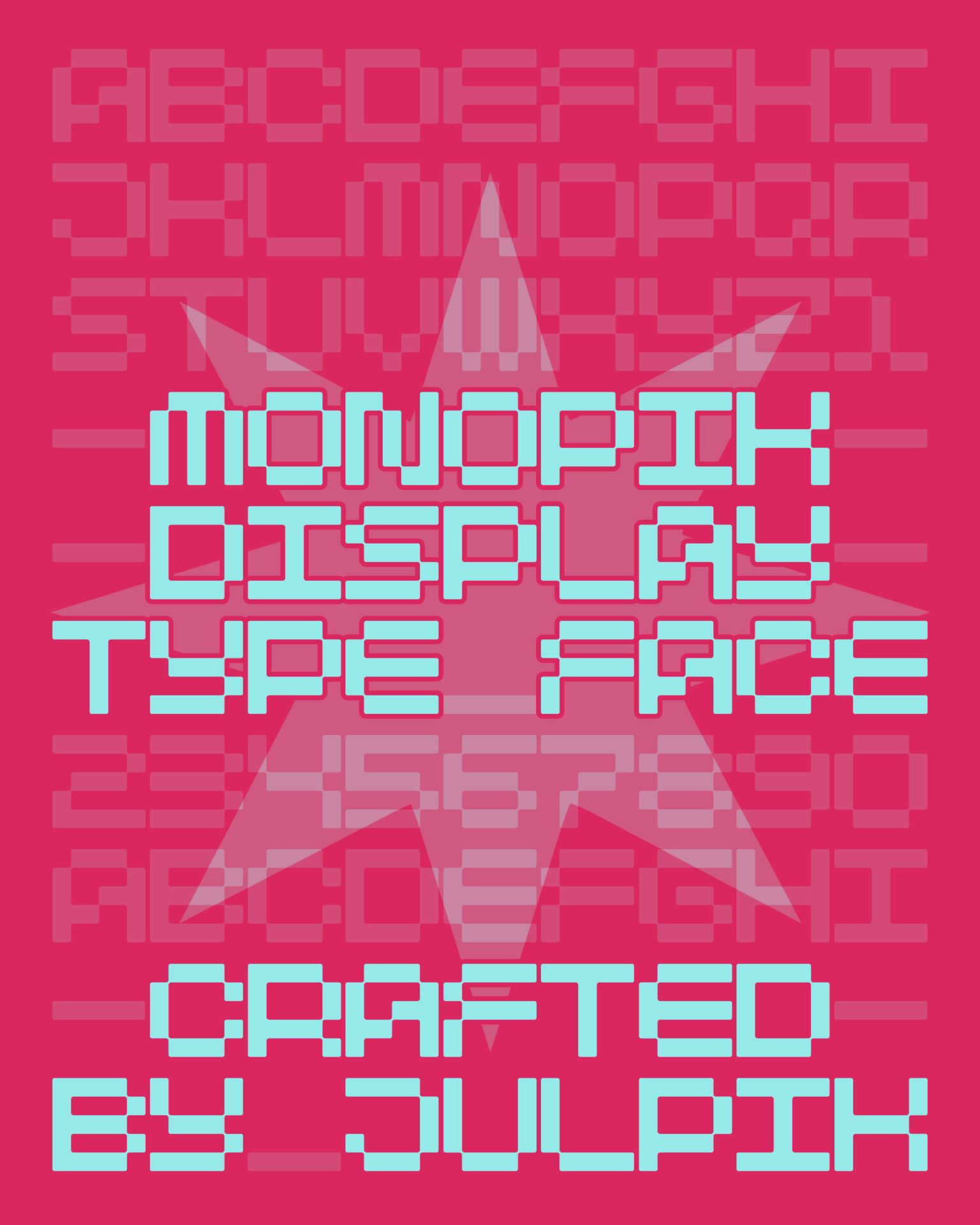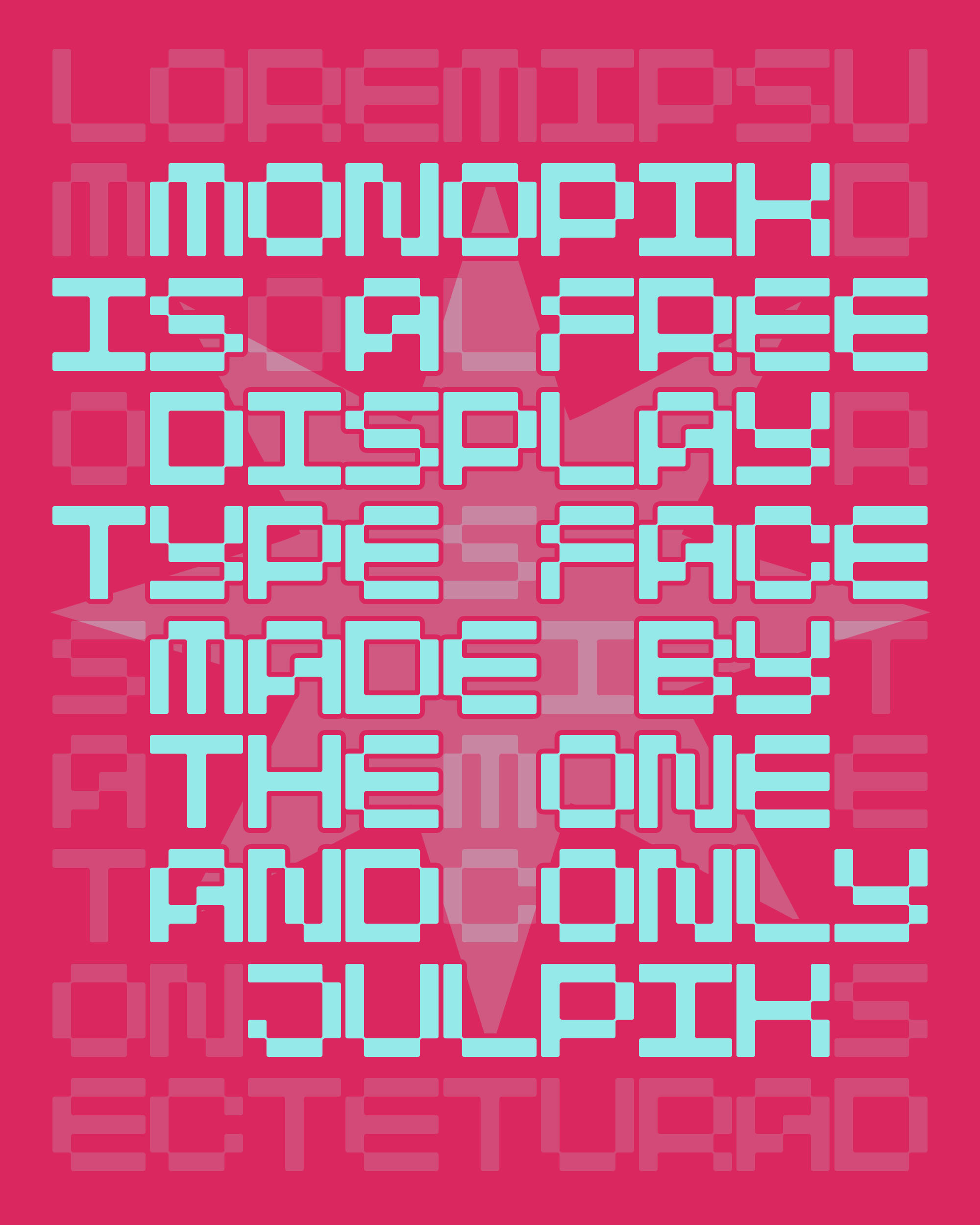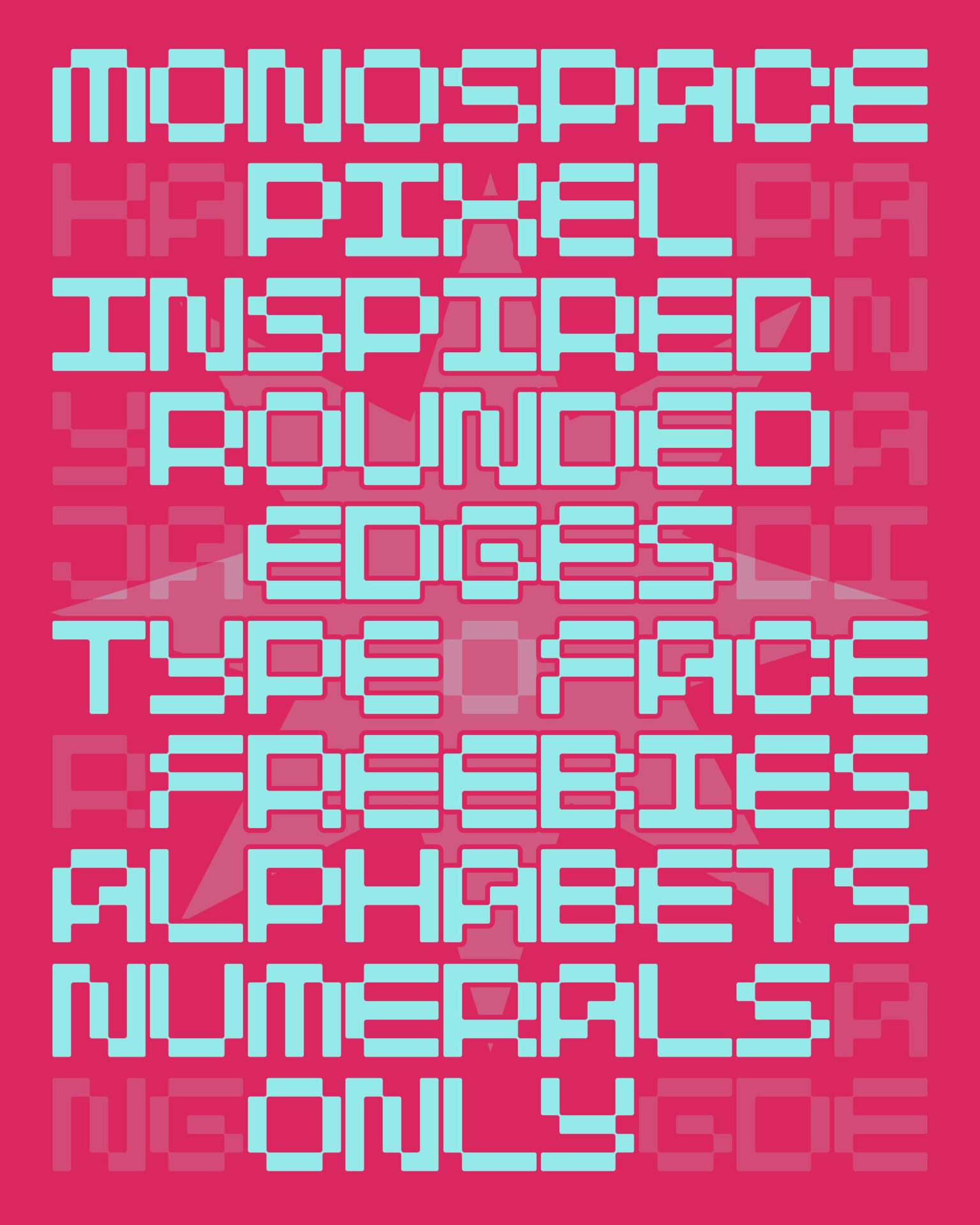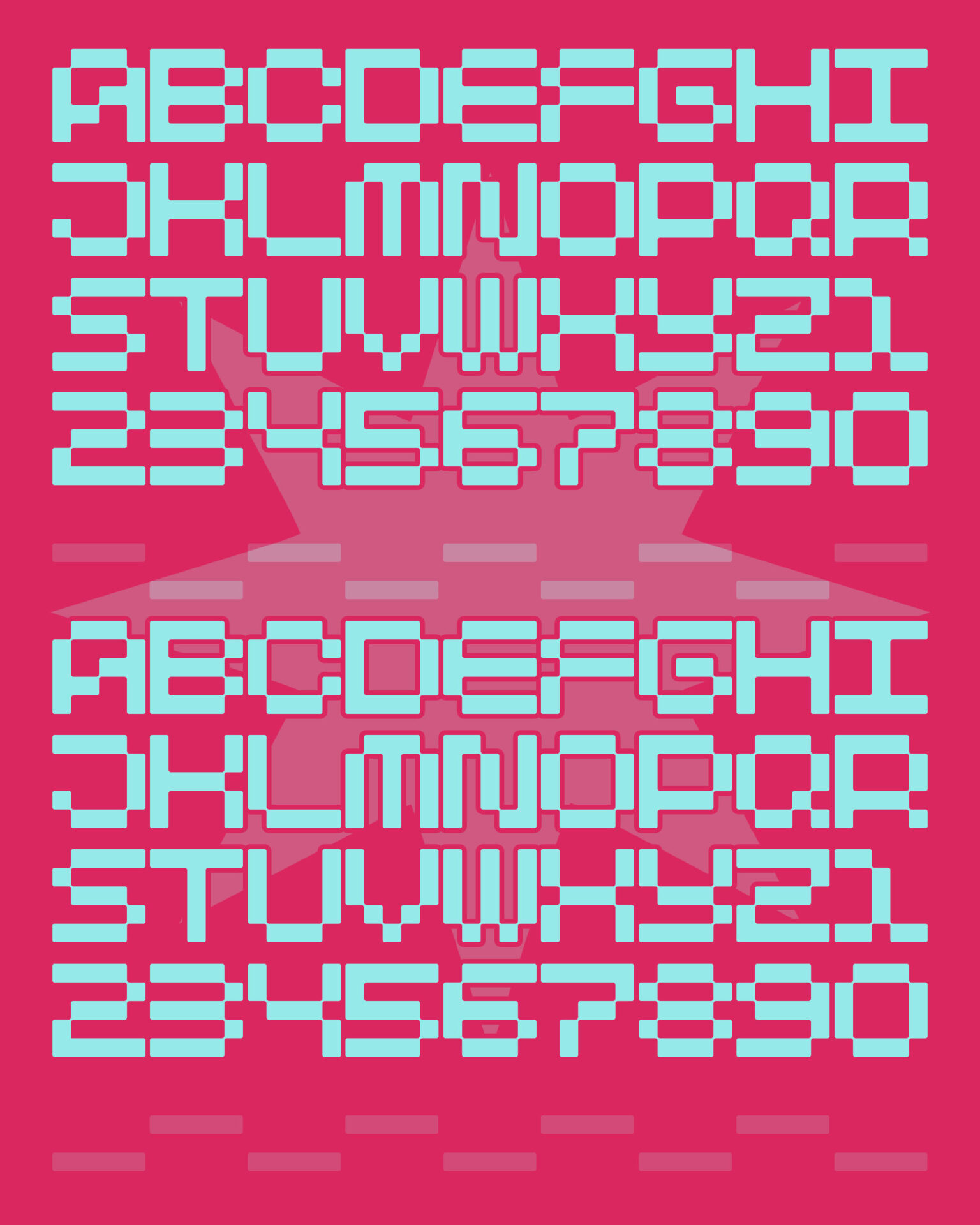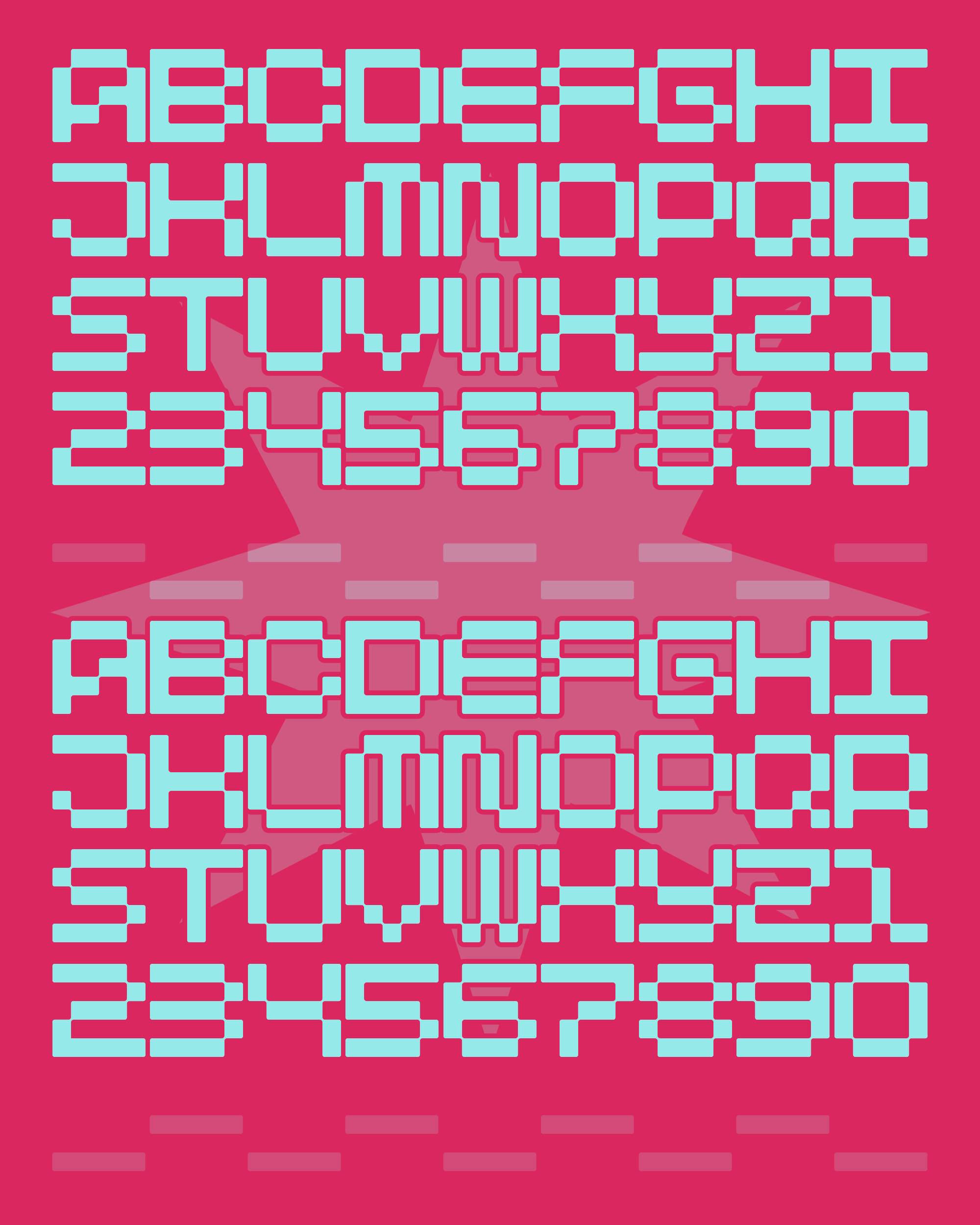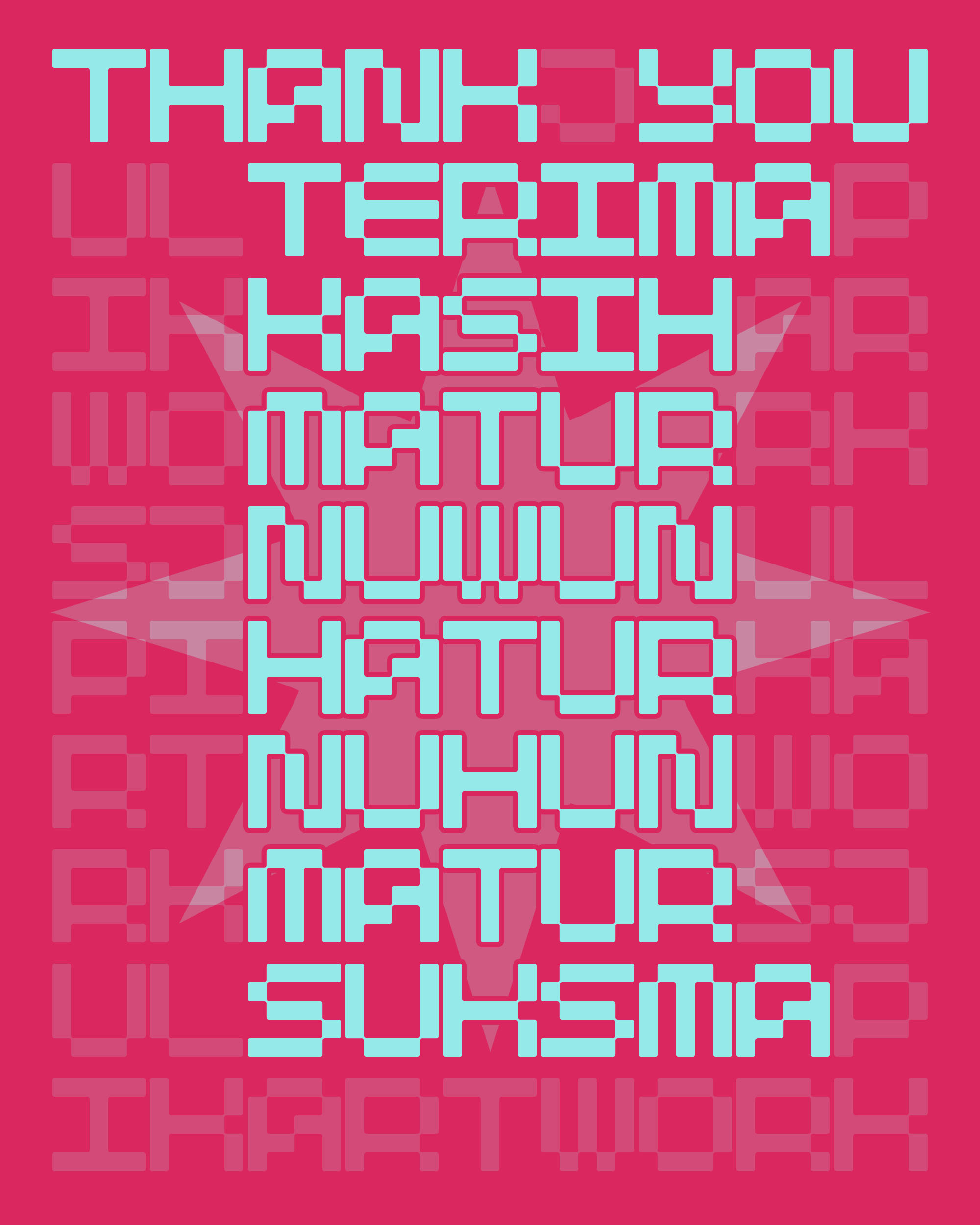
Monopik Font
Monopik Display Font
This is a free monospaced display typeface. This typeface is heavily inspired by pixel and monospaced typeface that was made before.